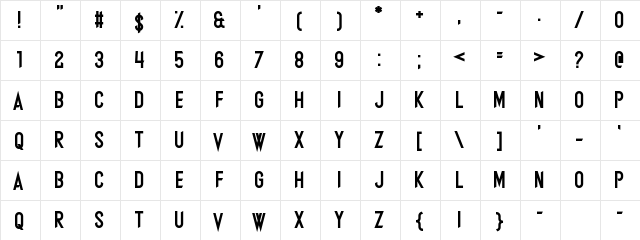
Slumber's Weight Regular
Design Context for Slumber's Weight Typeface
Slumber's Weight takes a measured approach to typography — its balanced proportions and neutral character make it a reliable workhorse for both digital and print work.